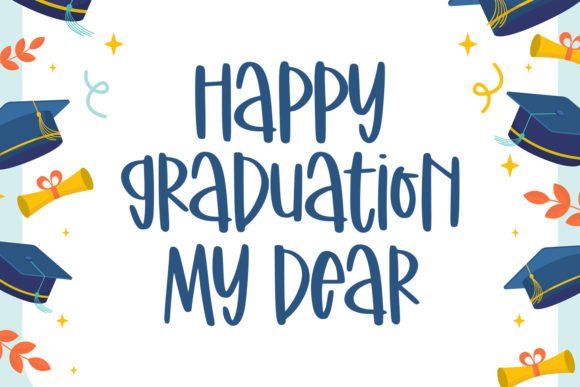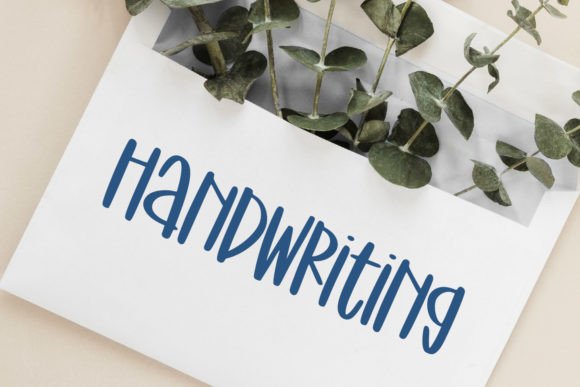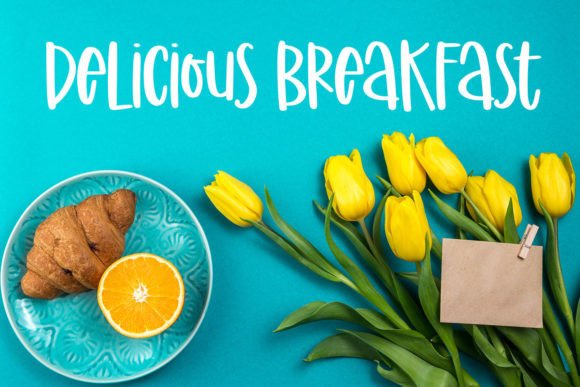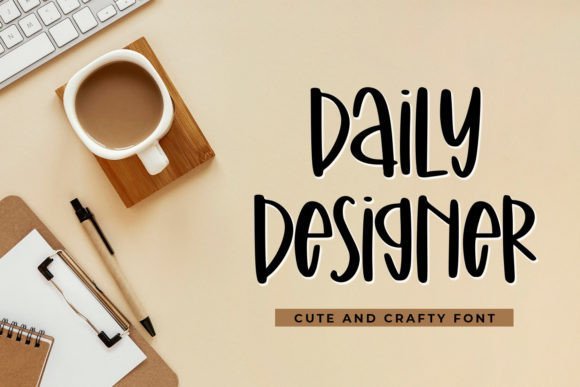
Introduction to Daily Designer Font
DAILY DESIGNER – cute and crafty font- DAILY DESIGNER is playful font.
It is great for branding, quotes, logos, t-shirt designs, tote bag designs, cards, banners, social media, and more .
Key Features of Daily Designer Font
Why Choose Daily Designer Font?
Daily Designer Font offers exceptional quality and versatility, making it a valuable addition to your design toolkit. Whether you’re creating for personal projects or commercial use, Daily Designer Font delivers professional results.